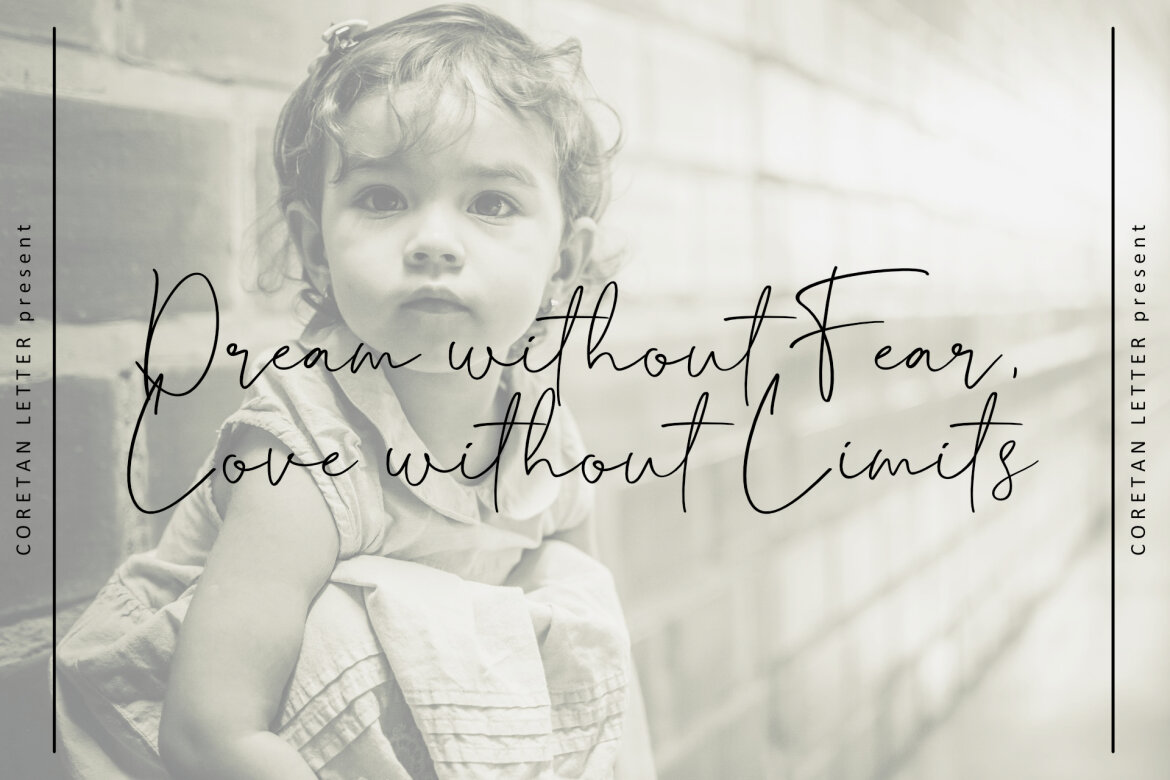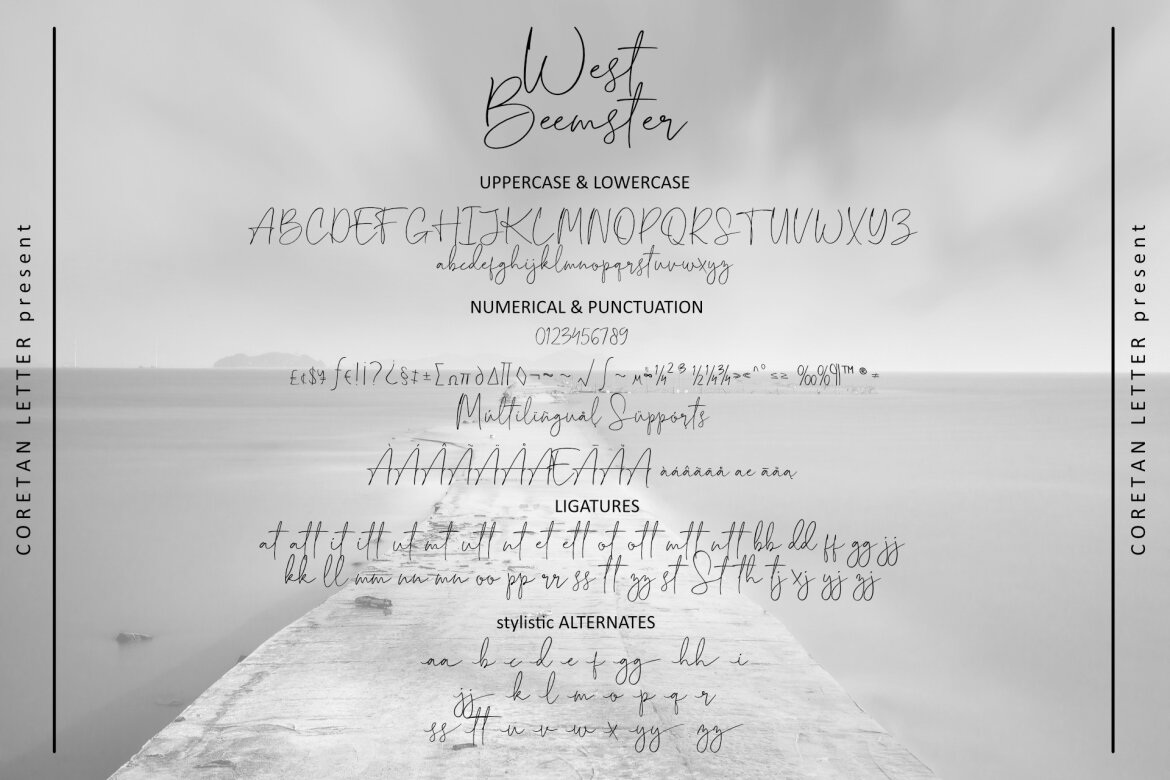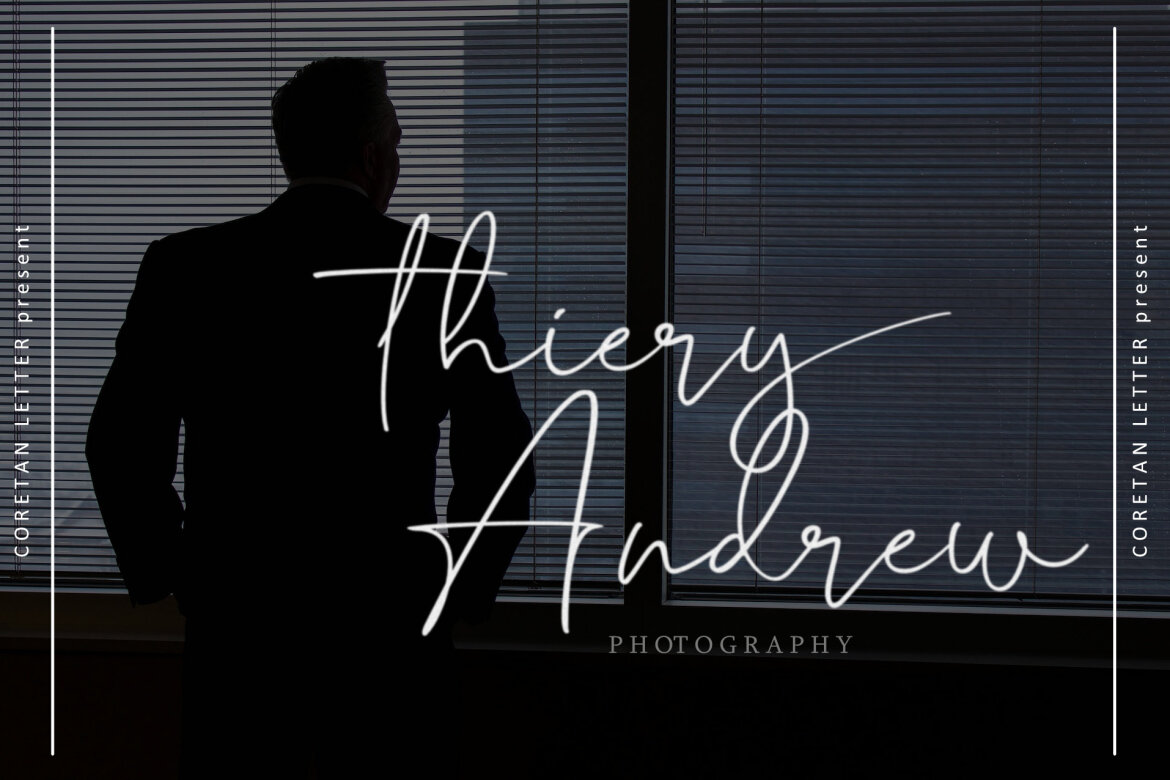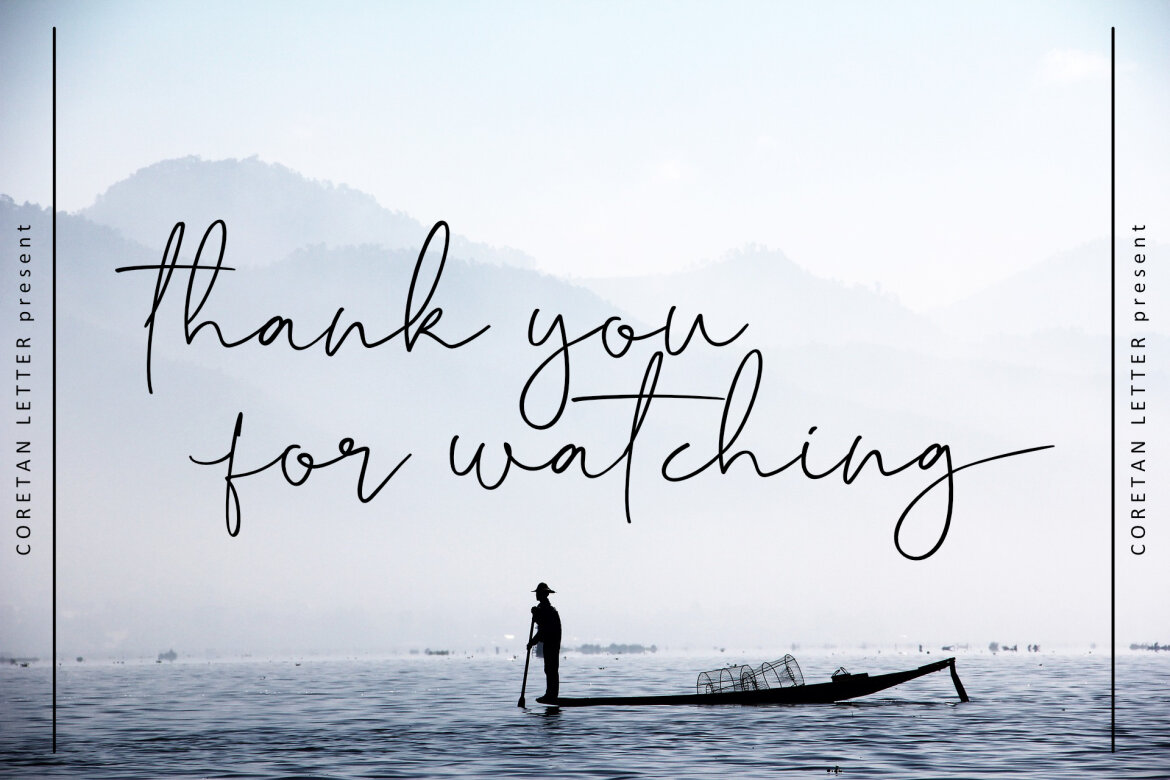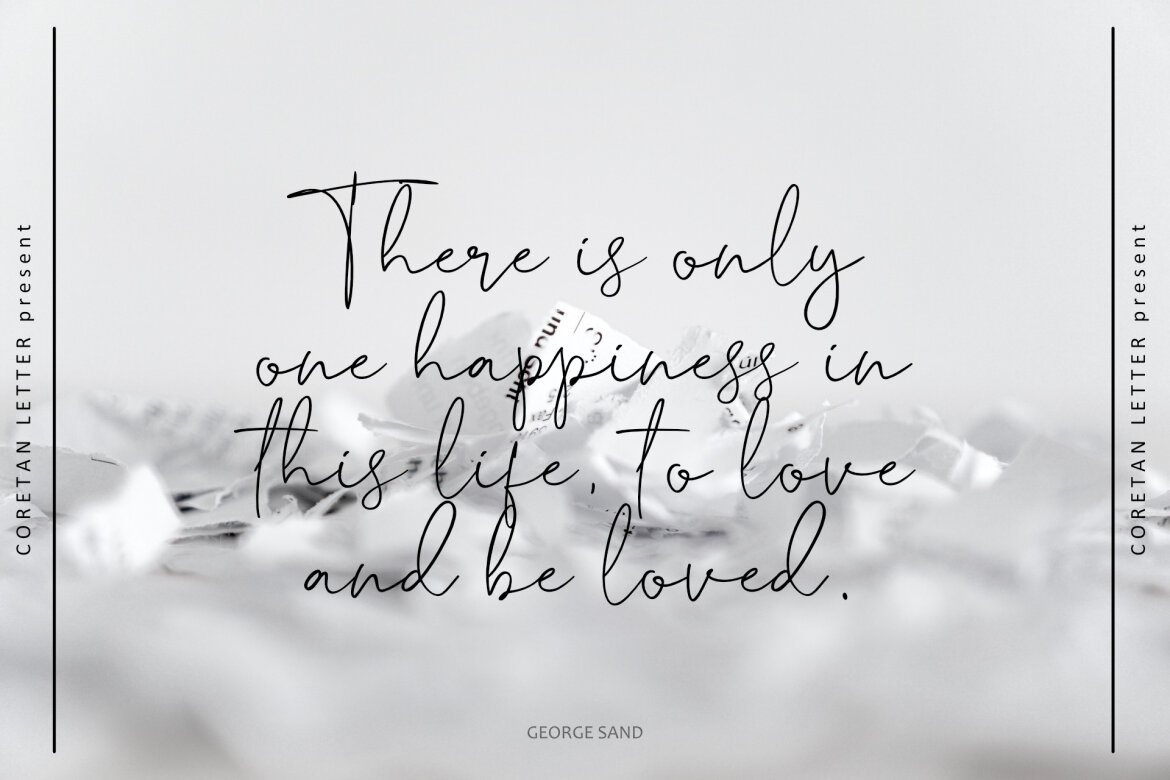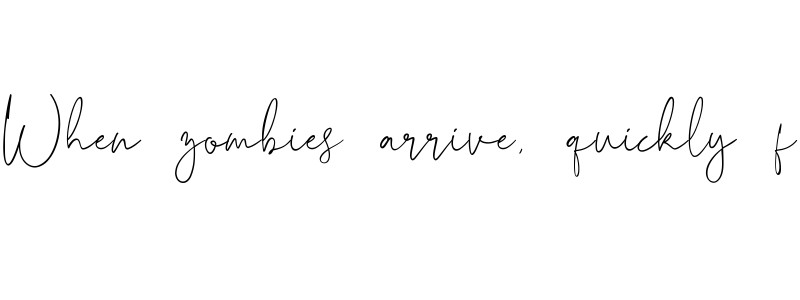
West Beemster FREE Font
WestBeemster
West Beemster is a chic, refined script font that emanates sophistication and elegance. Its stylish alternates and ligatures make this font the perfect match for any project.
• alternate